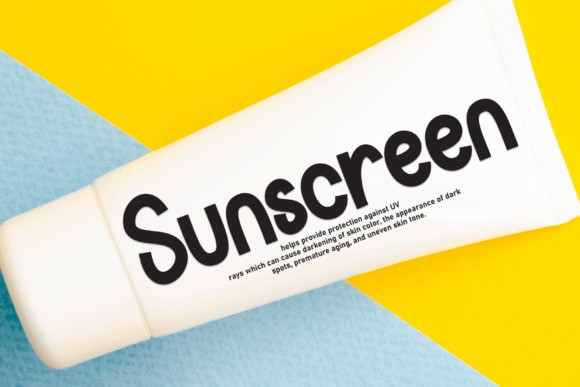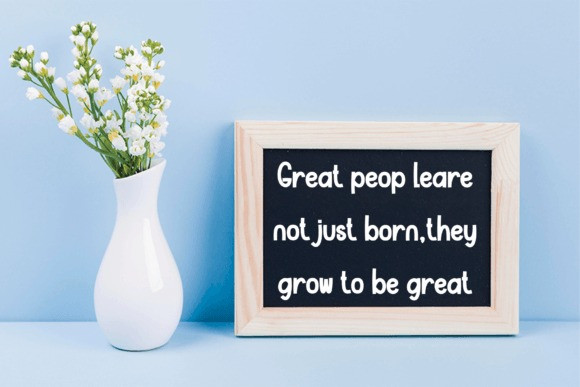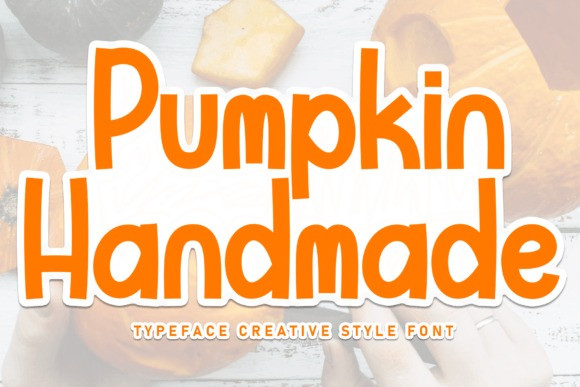
Pumpkin Handmade Font
Pumpkin Handmade Font is a clean, relaxed and friendly handwritten font. Suitable to a wide variety of designs due to its neat and simple style, this font has the potential to become your favorite go-to font, no matter the occasion!